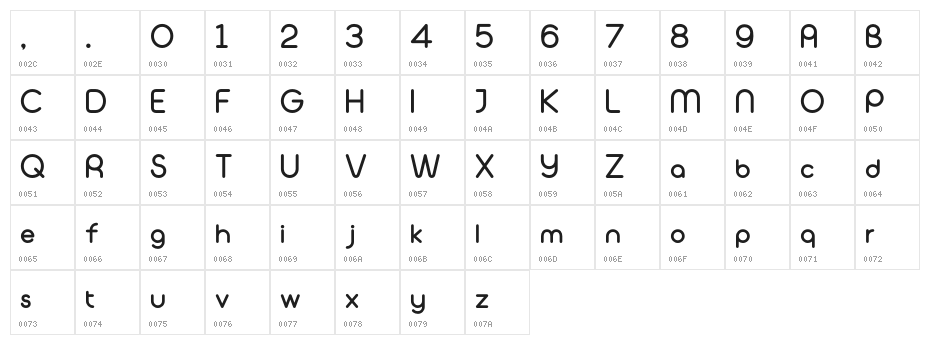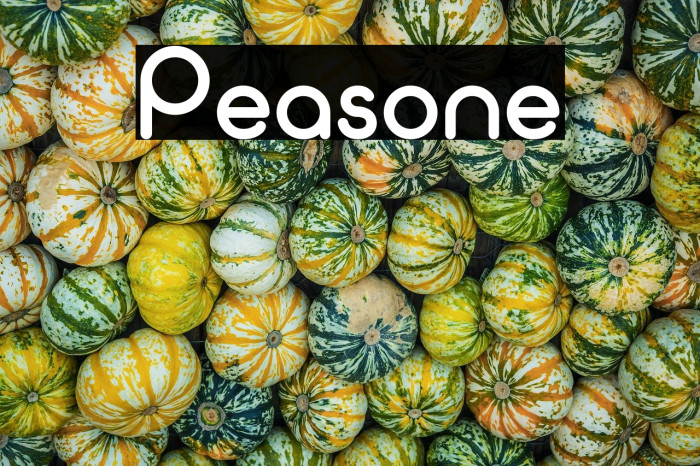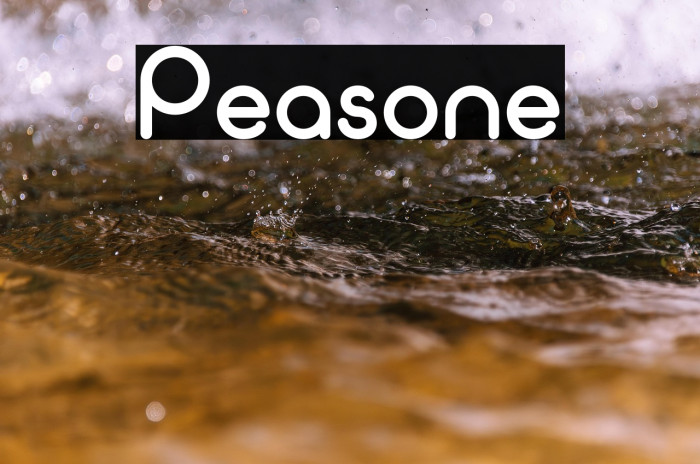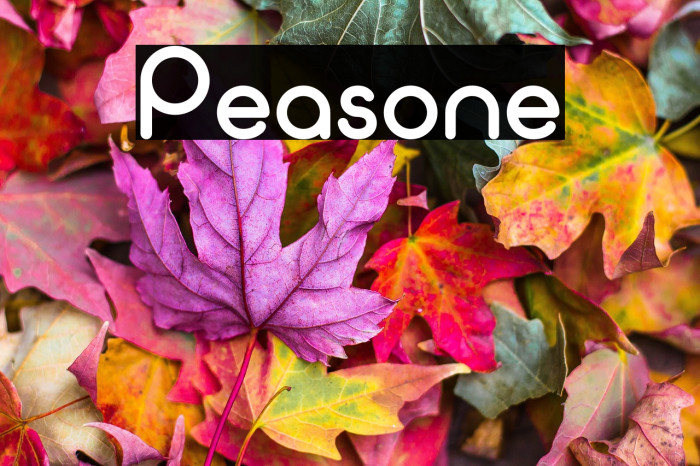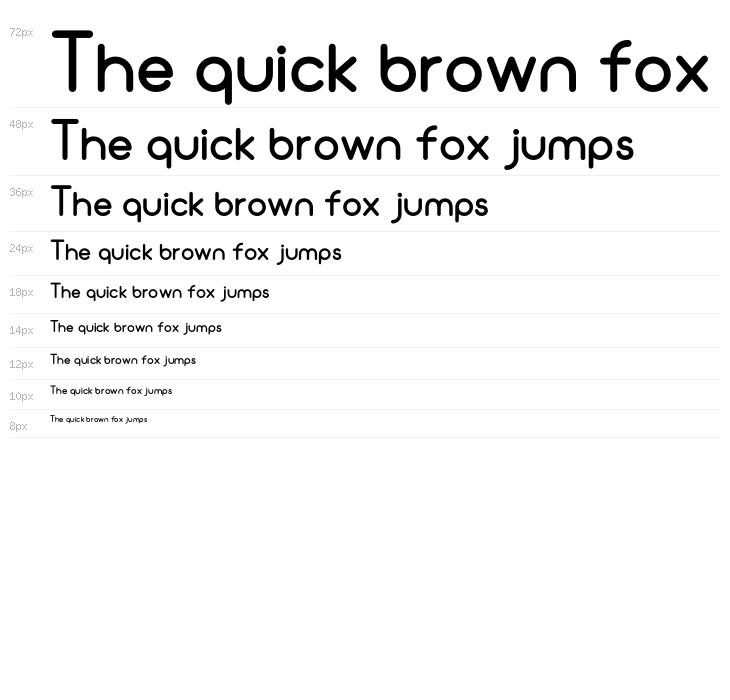
Peasone Font
Peasone Description
This font features a modern, rounded sans-serif style with smooth curves and a friendly appearance. The characters are evenly spaced, providing a clean and approachable look. The uppercase and lowercase letters maintain a consistent design, with rounded edges that enhance readability. The numerals are clear and distinct, matching the overall style of the alphabet. Special characters are included, maintaining the same rounded and smooth aesthetic. This font is versatile, suitable for a variety of design projects that require a contemporary and approachable feel.
| Use Case | Logos, Headlines, Digital interfaces |
| Proposed Projects | Ideal for branding, advertising, children's books, and digital interfaces. |